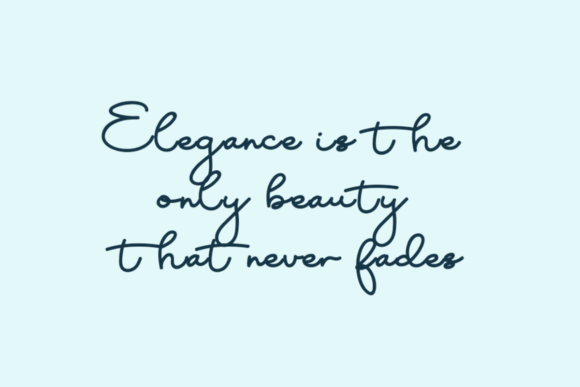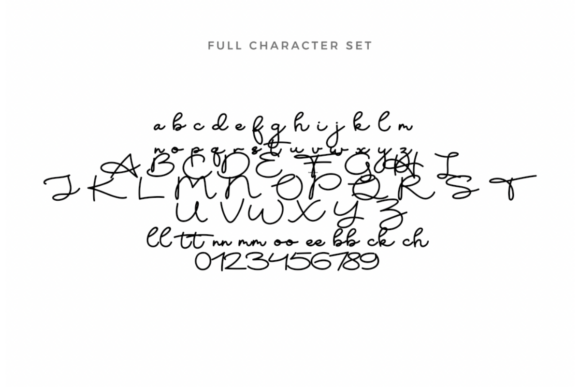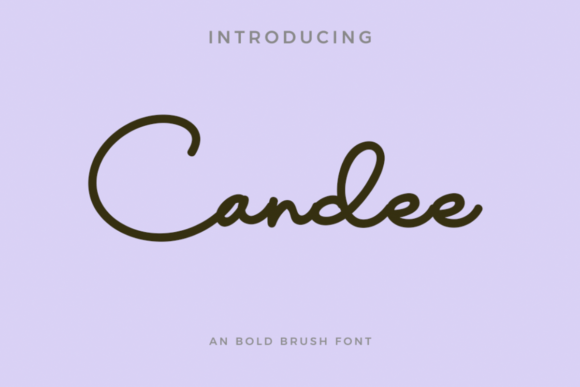
Candee Font: Elevate Your Designs with Elegance and Charm
In the world of typography, a font can make or break the aesthetic of a design. For those seeking a script font that exudes uniqueness and personality, look no further than Candee. This artfully crafted font is a masterpiece of handlettering, bringing a harmonious blend of elegance and charm to any creative project.
The Beauty of Handwritten Typography
Candee is a handwritten script font that celebrates the beauty of the written word. Its whimsical curves and delicate strokes are a testament to the art of handlettering. Each letter is carefully crafted to create a sense of fluidity and movement, making it perfect for designs that require a touch of sophistication and style.
What Makes Candee Special?
Candee is more than just a font – it’s an experience. Its exquisite handlettering and elegant strokes bring a level of refinement to any design. Here are just a few reasons why Candee stands out:
• Unique and Distinctive: Candee’s handcrafted letters ensure that your designs will stand out from the crowd. Its distinctive feel makes it perfect for branding, packaging, and marketing materials.
• Elegant and Refined: The font’s elegant strokes and delicate curves bring a level of sophistication to any design. Whether you’re creating a logo, invitation, or social media graphic, Candee adds a touch of refinement.
• Versatile: Candee is ideal for a wide range of creative projects, from digital designs to print materials. Its flexibility makes it a go-to font for designers and crafters.
Using Candee in Your Designs
Candee is perfect for a variety of design applications, including:
• Branding and Logo Design: Create a lasting impression with Candee’s unique and distinctive letters.
• Invitations and Stationery: Add a touch of elegance to your invitations, greeting cards, and stationery.
• Social Media Graphics: Elevate your social media presence with Candee’s refined and sophisticated style.
• Packaging and Product Design: Make your products stand out with Candee’s eye-catching and distinctive font.
Tips for Working with Candee
To get the most out of Candee, here are a few tips:
• Experiment with Font Sizes: Candee looks great in a variety of font sizes, from large headings to smaller body text.
• Play with Color: The font’s elegant strokes and curves look great in a range of colors, from bold and bright to soft and pastel.
• Mix and Match: Combine Candee with other fonts to create a unique and eye-catching design.
Candee is a script font that truly stands out from the crowd. Its exquisite handlettering, elegant strokes, and whimsical curves make it perfect for designers and crafters seeking to add a touch of elegance and charm to their designs. Whether you’re creating a logo, invitation, or social media graphic, Candee is the perfect choice. So why settle for an ordinary font when you can make a statement with Candee?
In conclusion, Candee is a beautiful and versatile script font that can elevate your designs to new heights. Its unique and distinctive feel, combined with its elegance and refinement, make it a must-have for any designer or crafter. So go ahead, give Candee a try, and experience the beauty of handwritten typography for yourself.